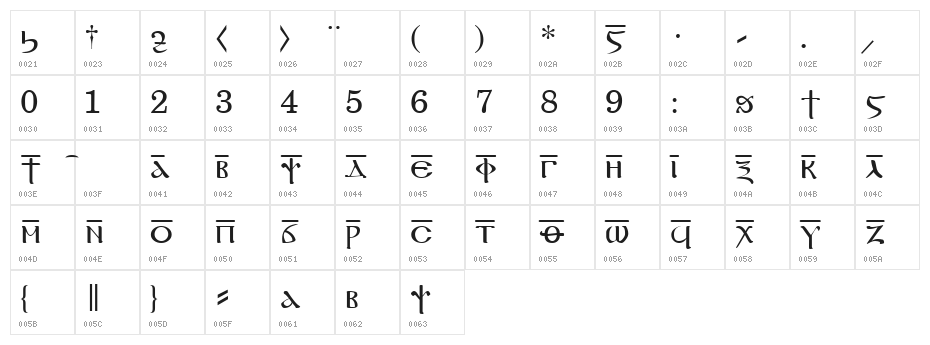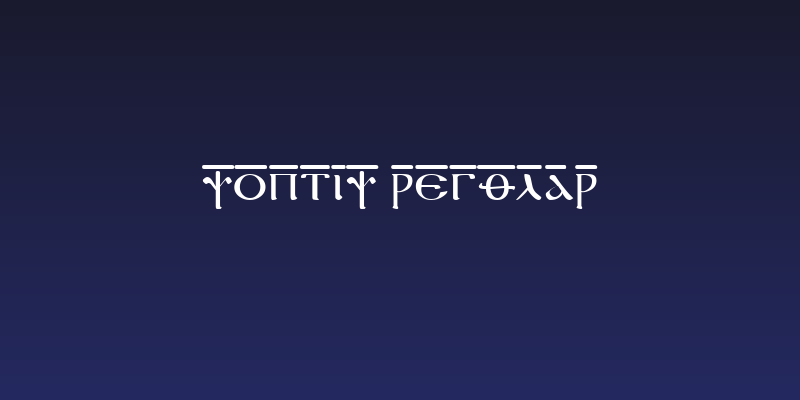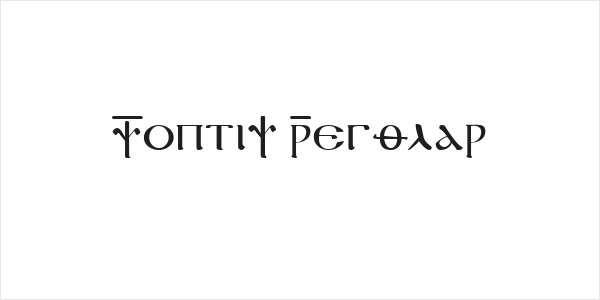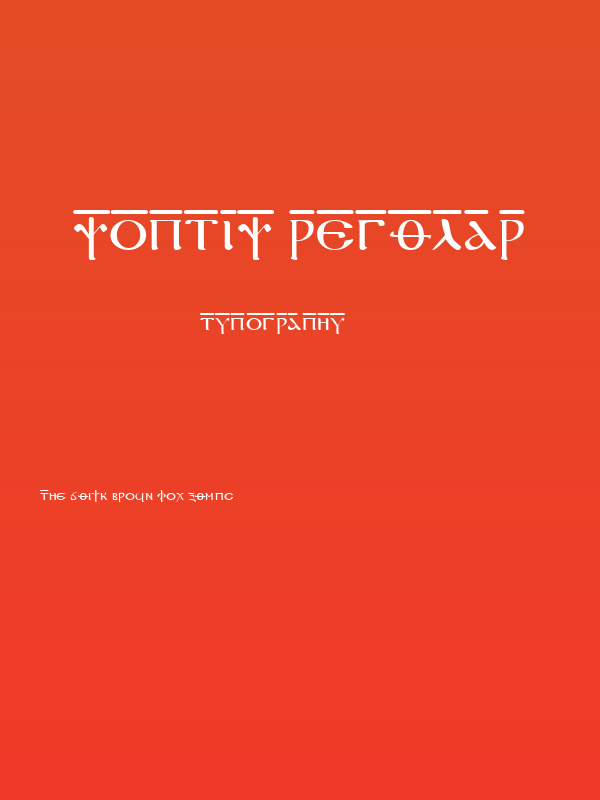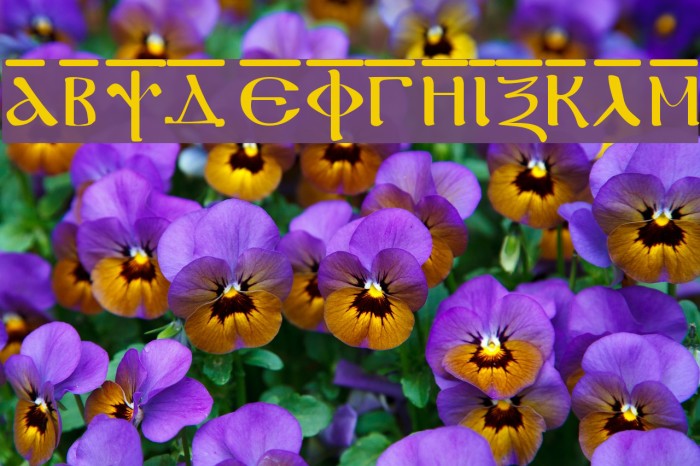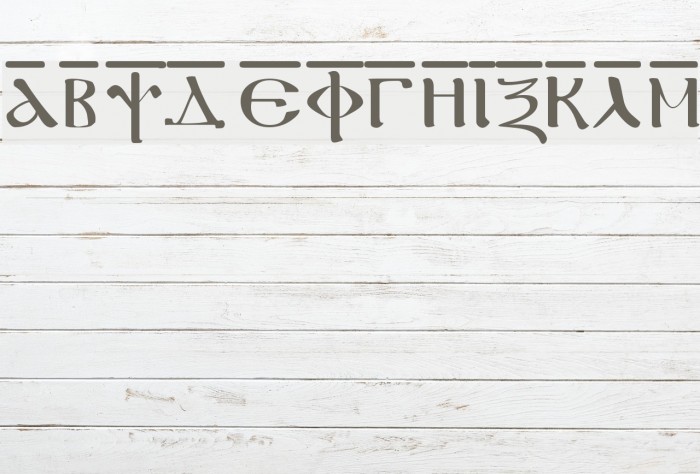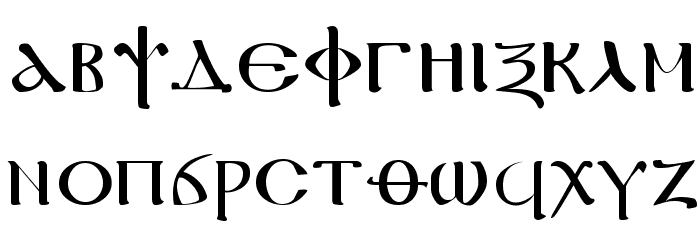
Coptic Regular Font
Coptic Regular Description
This font features a unique blend of traditional and modern elements, characterized by its distinct, ornamental serifs and intricate detailing. The uppercase letters exhibit a strong, geometric structure with elongated vertical strokes and decorative crossbars, giving them a regal and authoritative appearance. The lowercase letters maintain a consistent style, with smooth curves and sharp angles that enhance readability while preserving the font's artistic flair. The numerals are bold and well-defined, ensuring clarity and balance. Overall, this font exudes a sense of historical elegance and sophistication, making it suitable for a variety of design applications.